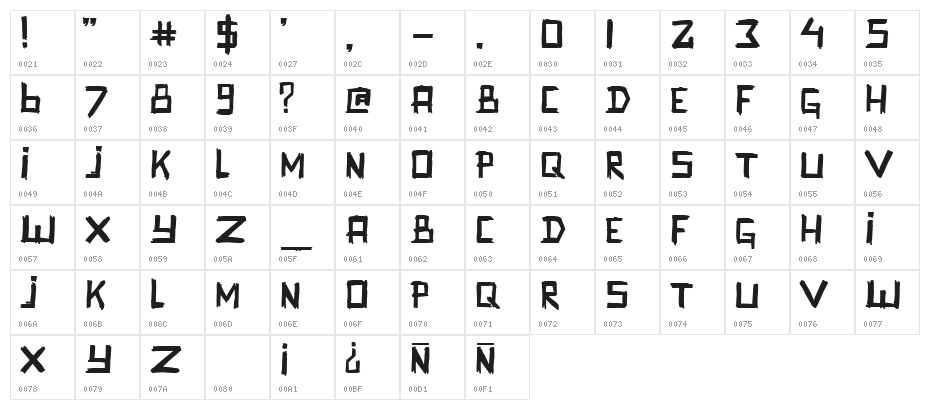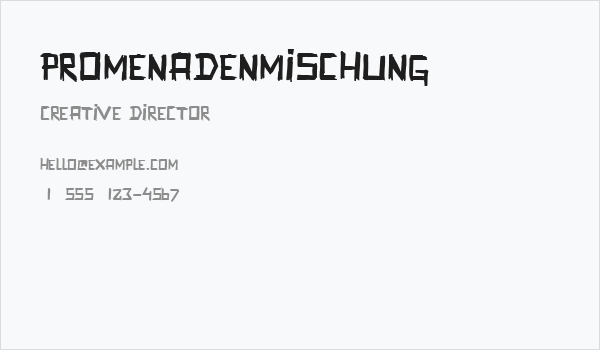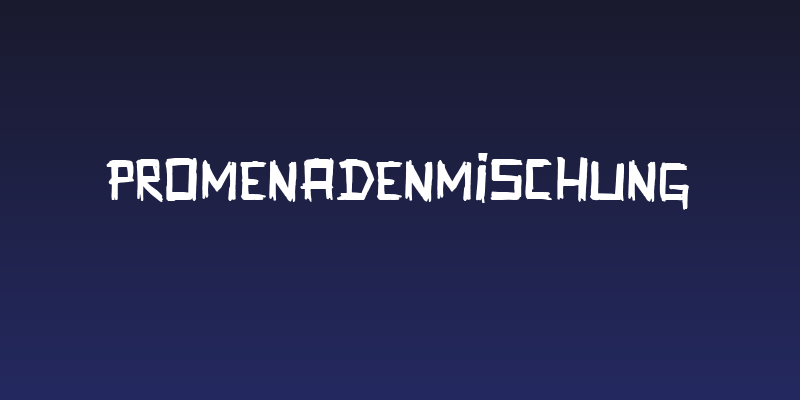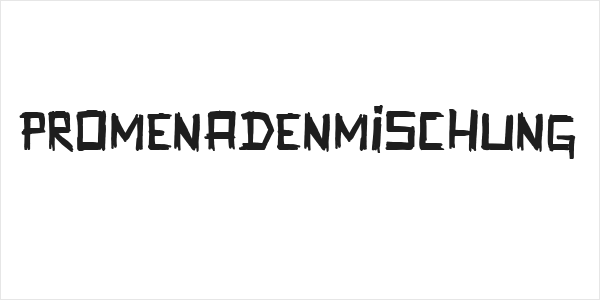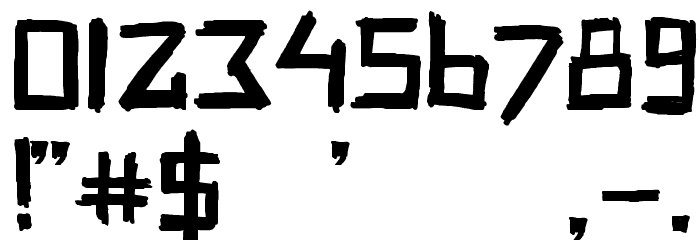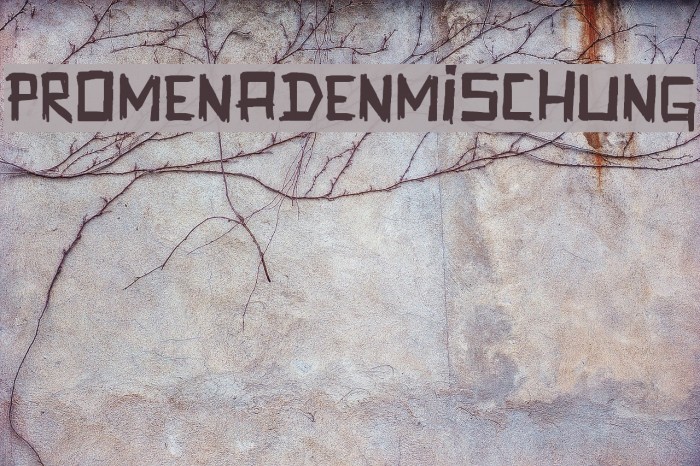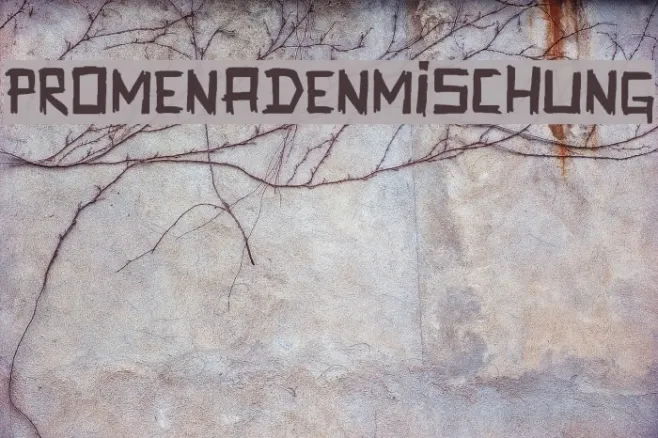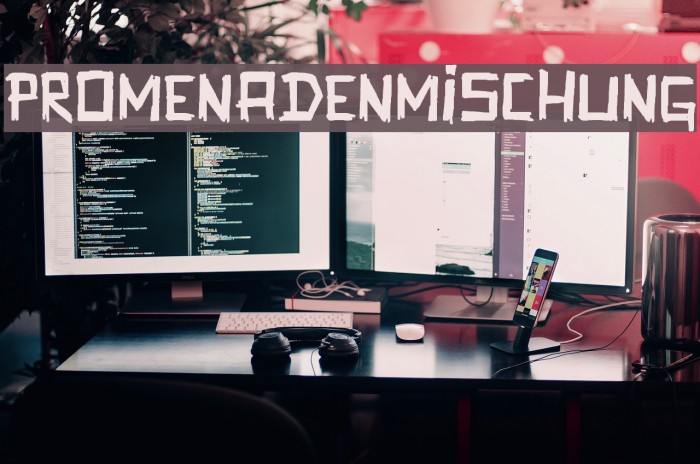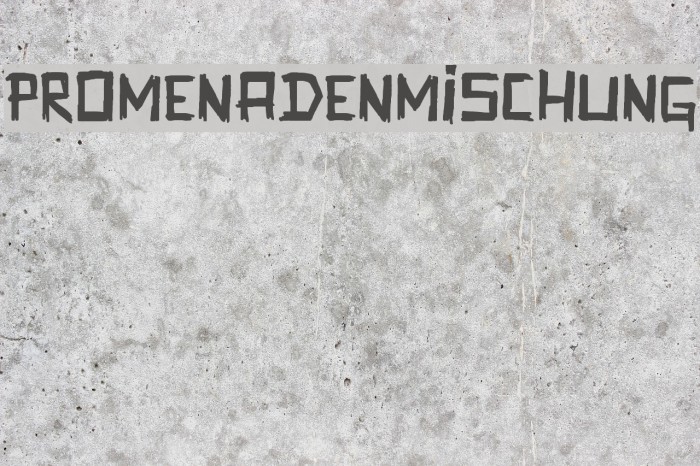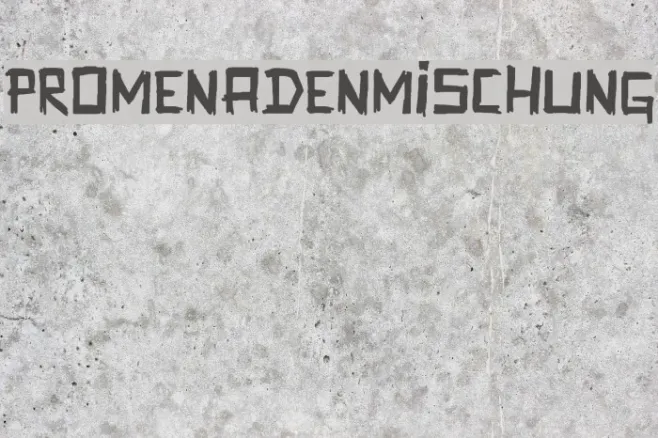
Promenadenmischung Font
Promenadenmischung Description
This font features a bold and rugged style with a hand-drawn appearance. The characters are slightly irregular, giving it a unique and artistic feel. The strokes are thick and uneven, adding to its raw and expressive nature. The uppercase letters are prominent and assertive, while the numbers and special characters maintain the same boldness. This font is ideal for projects that require a strong and distinctive visual impact, such as posters, album covers, or branding materials that aim to convey creativity and individuality.
| Overall Style | Artistic, Rugged |
| Proposed Projects | Ideal for posters, album covers, branding materials, and creative projects. |